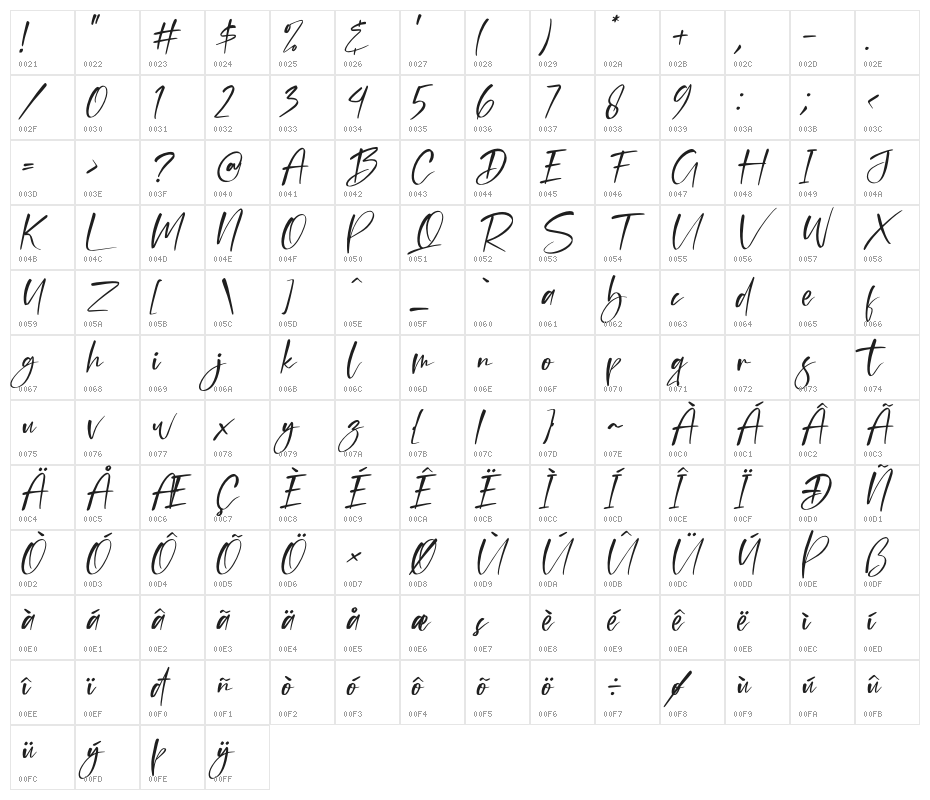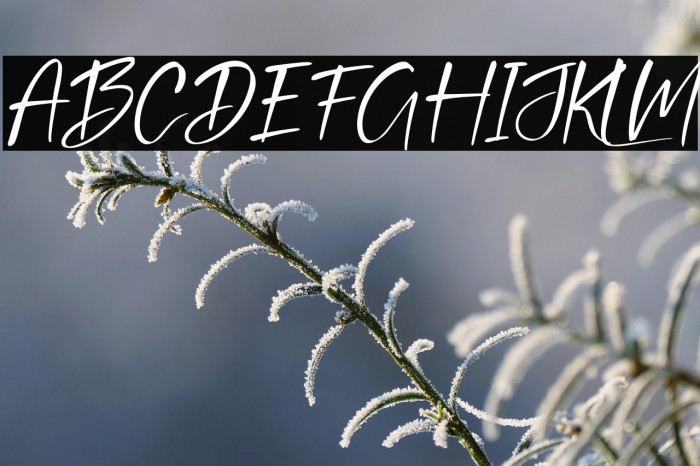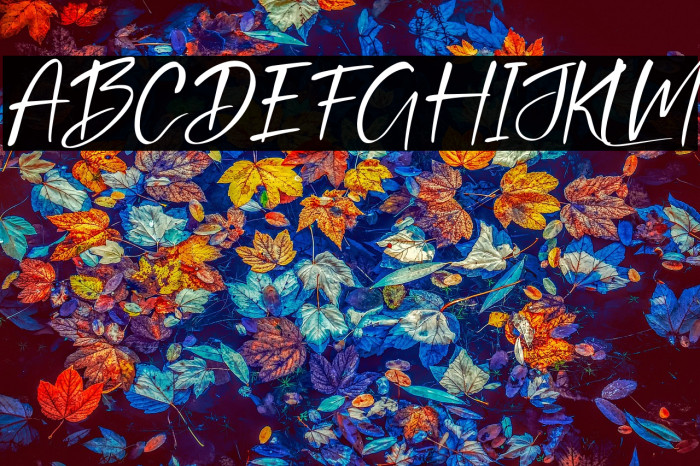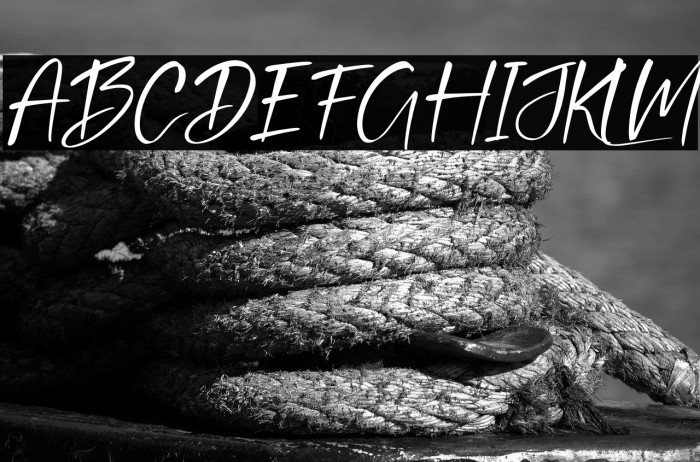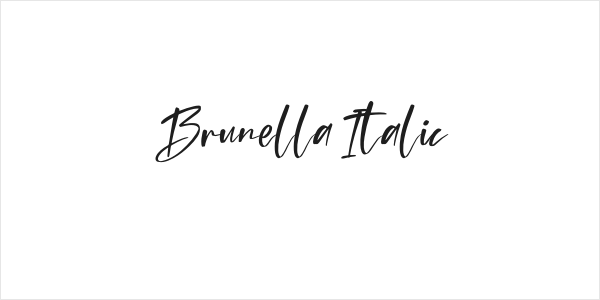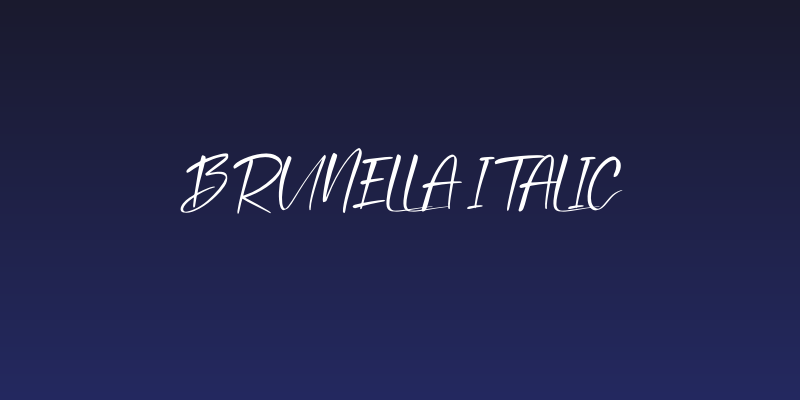
Brunella Italic Font
Brunella Italic Description
This font exudes a dynamic and expressive style, characterized by its fluid, cursive script that mimics natural handwriting. The letters are elegantly slanted, creating a sense of motion and grace. Each character is crafted with varying stroke widths, adding a lively and artistic flair. The uppercase letters are bold and prominent, while the lowercase letters maintain a consistent flow, enhancing readability. The numerals and special characters are designed to complement the overall aesthetic, making them suitable for creative and decorative purposes. This font is ideal for projects that require a personal touch, such as invitations, greeting cards, and branding materials.
| Proposed Projects | Ideal for invitations, greeting cards, branding, and creative projects. |